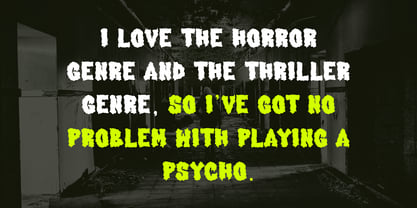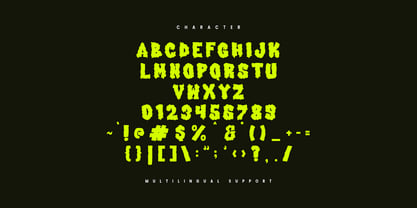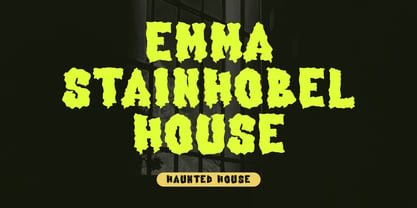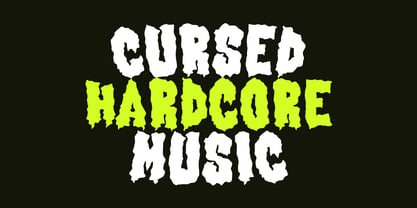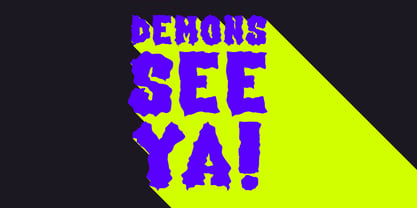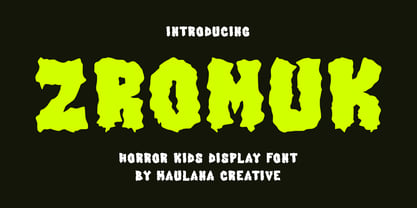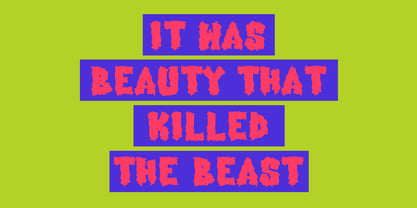
MC Zromuk
by Maulana Creative
The MC Zromuk Font Family was designed by Gilang Maulana and published by Maulana Creative. MC Zromuk contains 1 styles. More about this family
Zromuk is a handwritten kids trendy horror display font. With simple stroke and fun character. To give you an extra creative work "Zromuk" font support multilingual more than 100+ language. This font is good for logo design, Social media, Movie Titles, Books Titles, a short text even a long text letter and good for your secondary text font with sans or serif. Make a stunning work with Zromuk font.
Designers: Gilang Maulana
Foundry: Maulana Creative